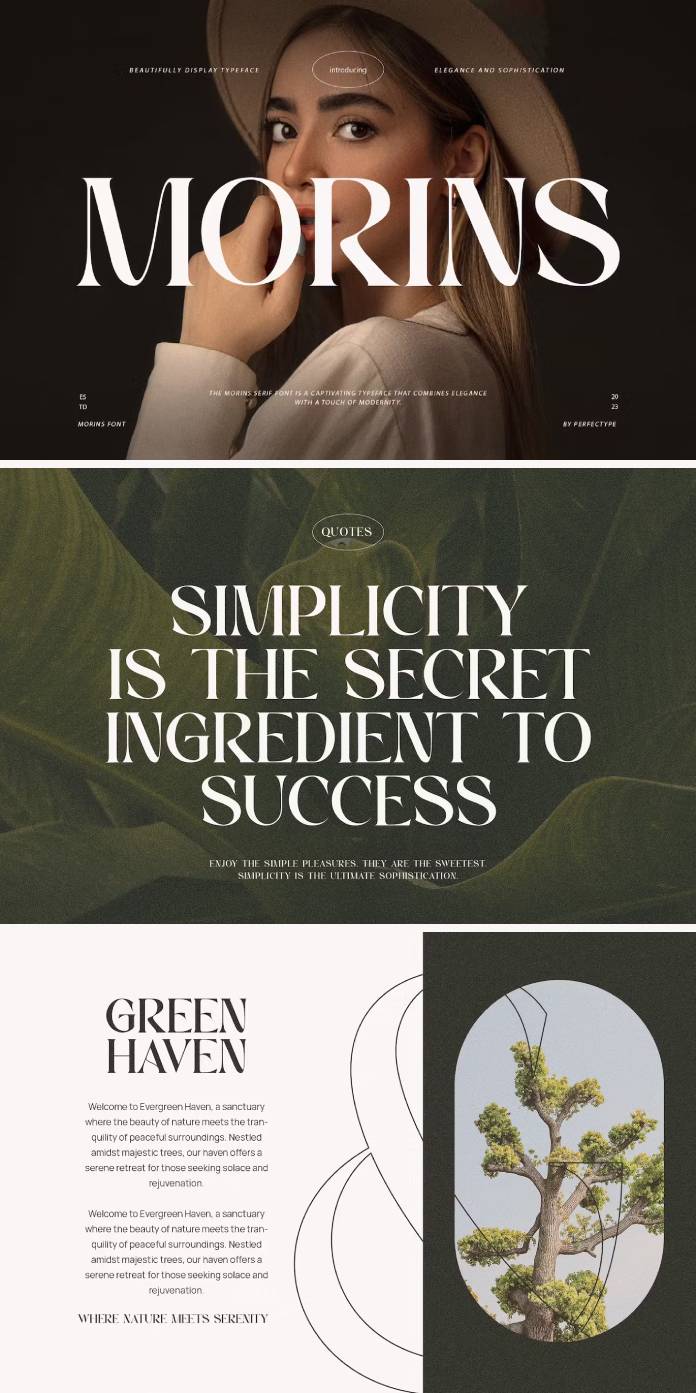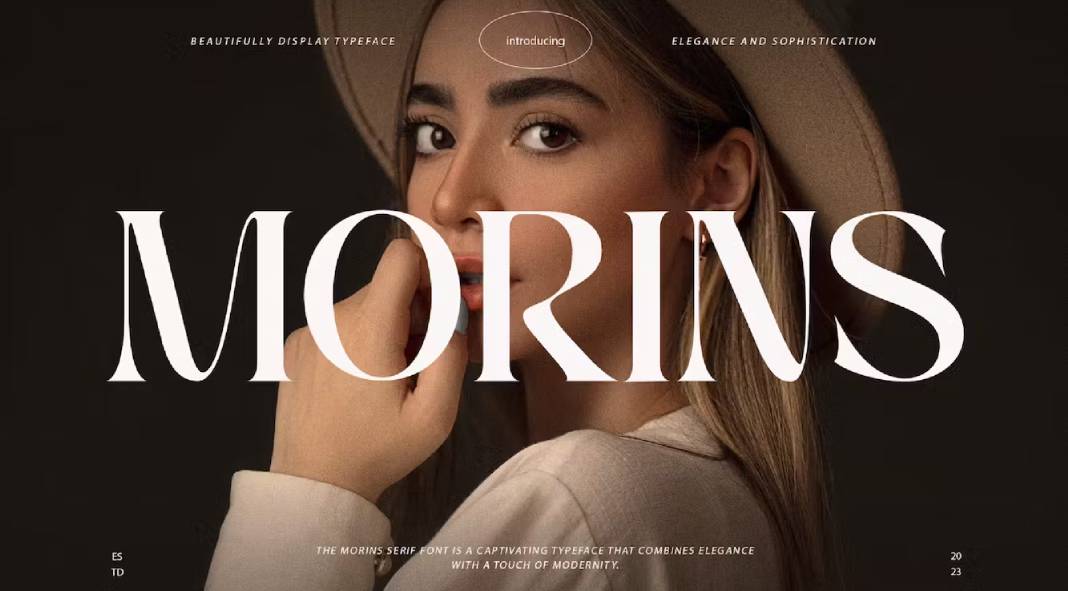
In the vast world of typography, where fonts serve as the silent ambassadors of a brand’s identity, Morins stands out as an epitome of elegance and modern sophistication. Crafted by Perfectype, this unique serif typeface transcends conventional design boundaries, offering a blend of classiness and contemporary allure perfectly suited for many creative ventures.
A Symphony of Elegance and Modernity
At first glance, Morins captivates with its graceful serif strokes, seamlessly merging traditional typographic elements with a modern flair. Its distinctively sleek lines and carefully crafted curves exude a sense of refinement, making it an ideal choice for projects where sophistication is paramount.
Versatility Unveiled
One of the font’s most remarkable traits is its unparalleled versatility. Morins gracefully adapts to diverse design needs, making it an indispensable asset across various creative spectrums:
Branding Projects:
Morins breathes life into brand identities, lending an air of sophistication that resonates with audiences. Its timeless charm enhances the visual appeal of logos, imparting a sense of credibility and trustworthiness to the brand.
Wedding Designs and Invitations:
For those seeking to infuse their special day with elegance, Morins becomes the language of love, gracing wedding invitations, stationery, and designs with an unmatched level of finesse.
Social Media Posts and Advertisements:
In the fast-paced world of social media and advertising, Morins commands attention. Its modern yet classic aesthetic elevates content, making it stand out amidst the digital noise.
Product Packaging and Labels:
From luxurious product packaging to refined labels, Morins adds a touch of sophistication that captivates consumers and communicates quality effortlessly.
Photography and Watermarks:
Even in the realm of visual storytelling, Morins finds its place. Whether as a watermark on stunning photographs or in elegant captions, it complements visuals with an understated allure.
Readability Refined
Beyond its aesthetic appeal, Morins prioritizes readability, ensuring that every word, every message, is conveyed with clarity and finesse. Its balanced letterforms and carefully curated spacing enhance legibility, ensuring a seamless reading experience across various mediums.
Your Journey to Timeless Elegance
Investing in Morins isn’t just purchasing a font; it’s acquiring a timeless piece of design that elevates every project it graces. Perfect for designers, marketers, content creators, and beyond, this font promises to be the catalyst for transforming ideas into captivating realities.
Your Font for Elegance and Impact
In a world where the visual language speaks volumes, Morins stands tall as a beacon of elegance and modernity. From branding endeavors to personal projects, its refined strokes and versatile nature make it an indispensable asset for anyone seeking to make a lasting impression.
Embrace Morins, and witness how a font can transcend mere letters, becoming a conduit for sophistication, credibility, and timeless appeal in every project you undertake. Elevate your designs, captivate your audience, and make a resonant statement—Morins is your path to unparalleled elegance.